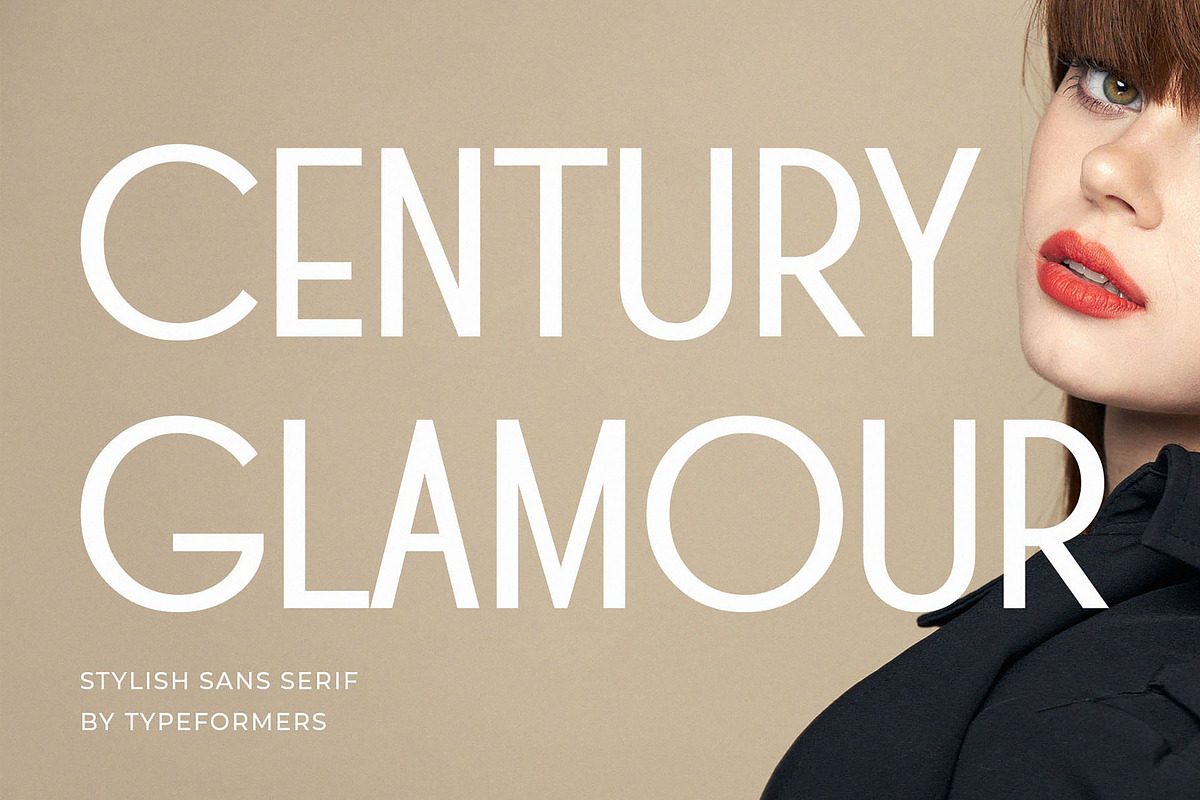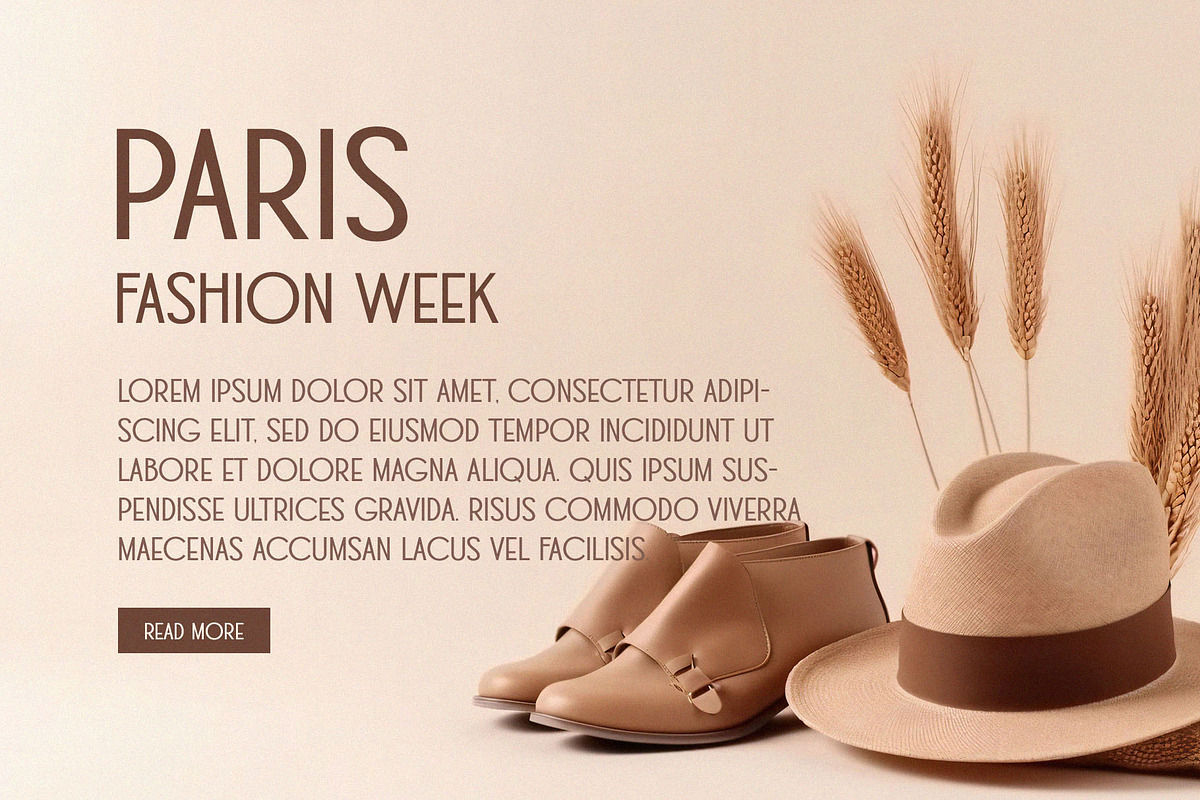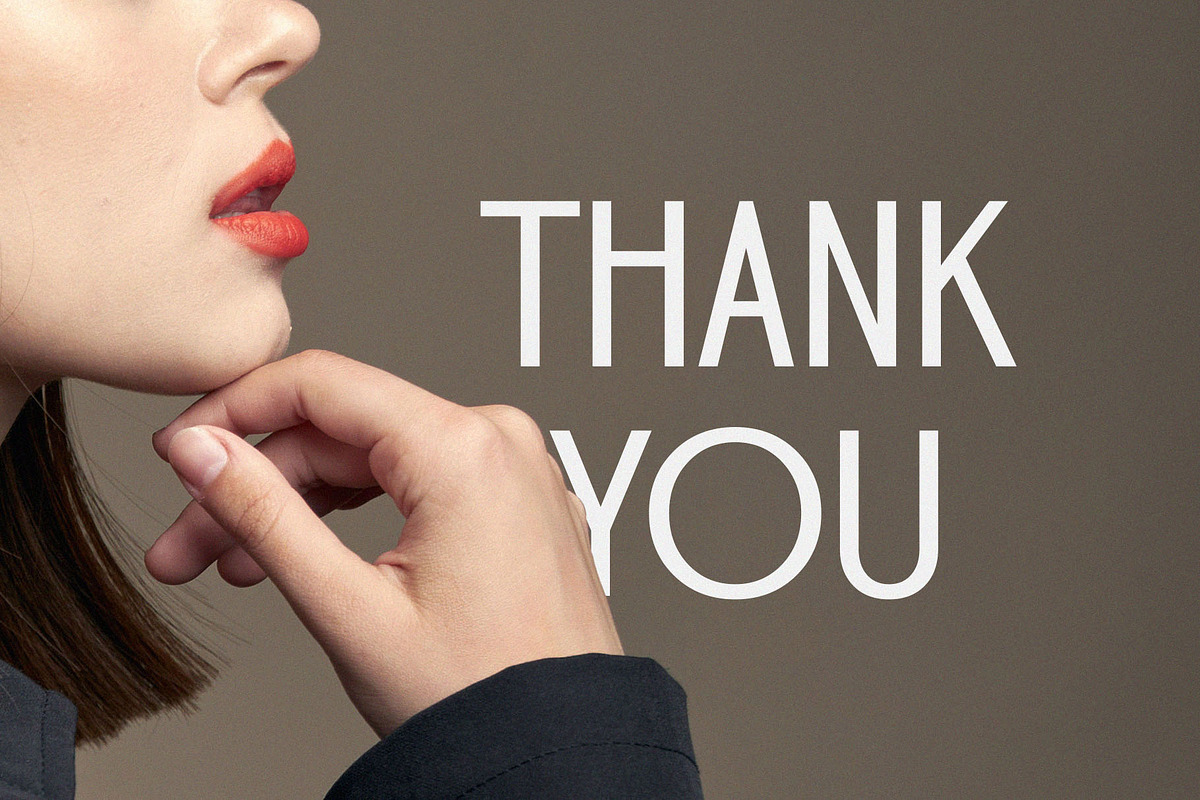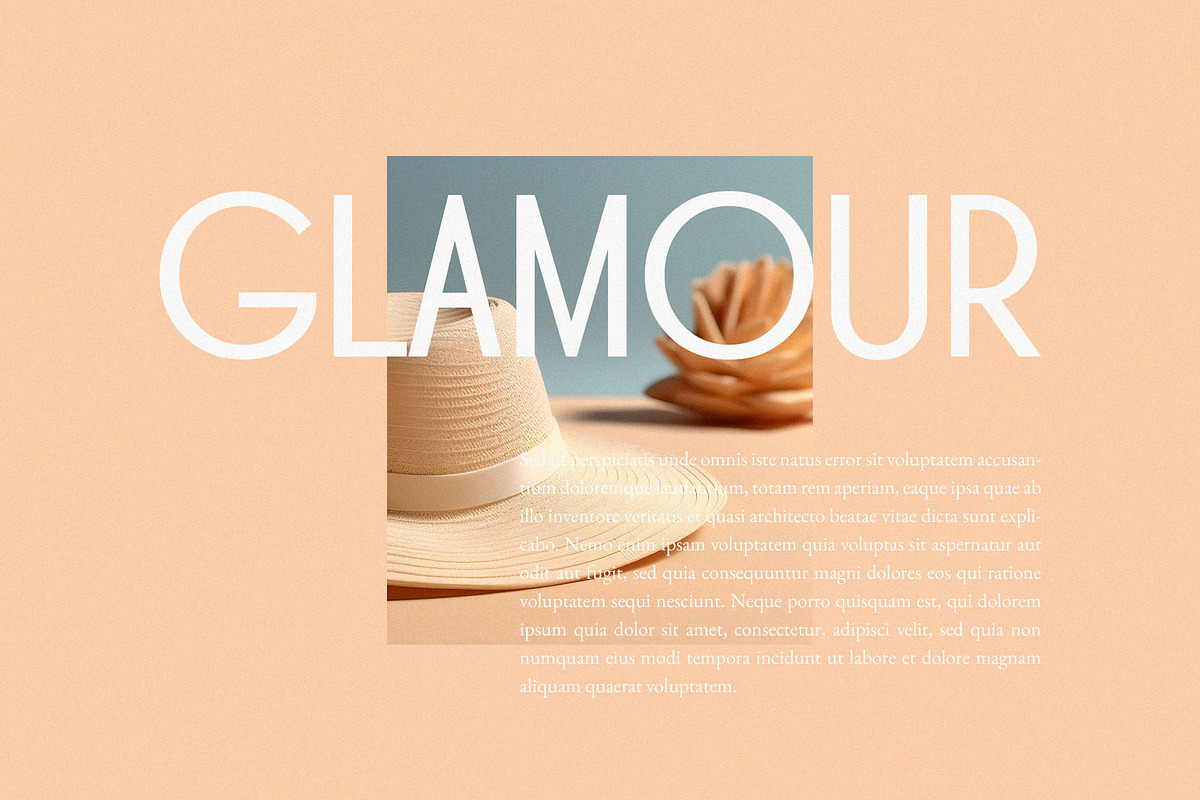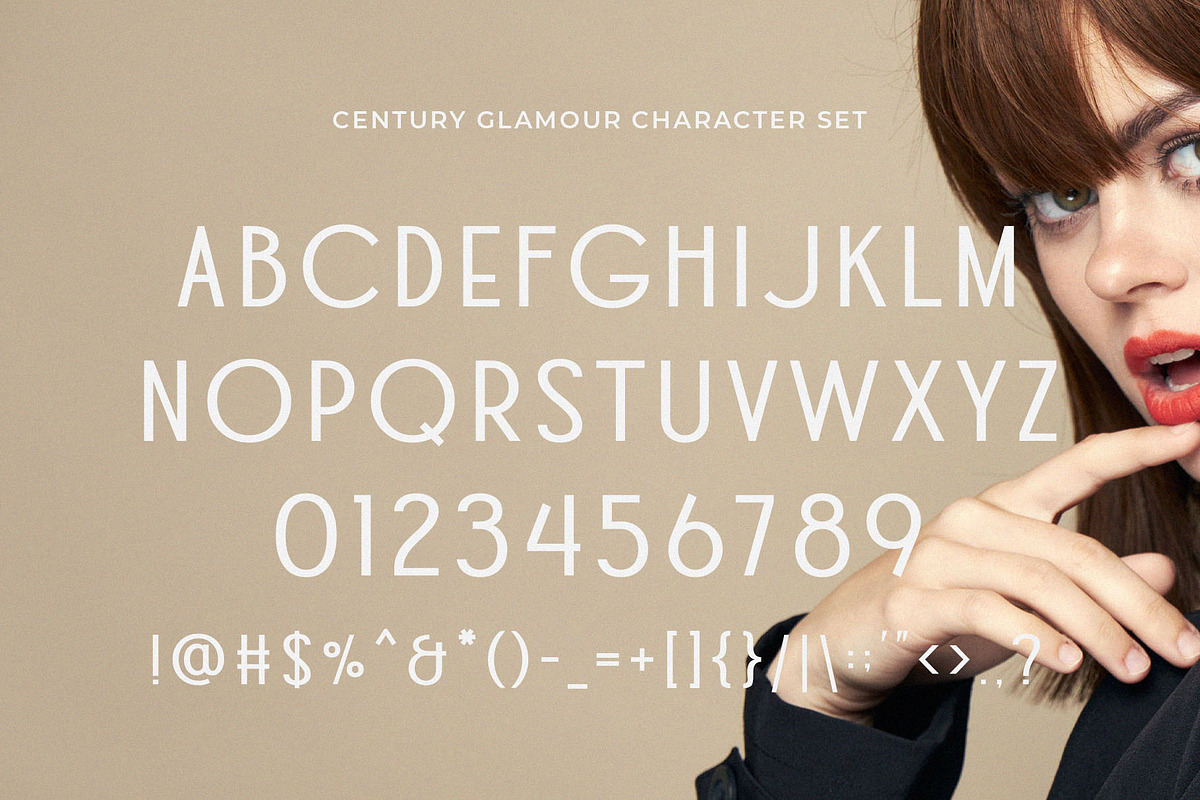
Century Glamour - Stylish Sans Serif
Introducing Century Glamour - Stylish Sans Serif. Century Glamour is a modern and simple font, best used as a display for headings, logos, branding, magazines, product packaging and invitations.